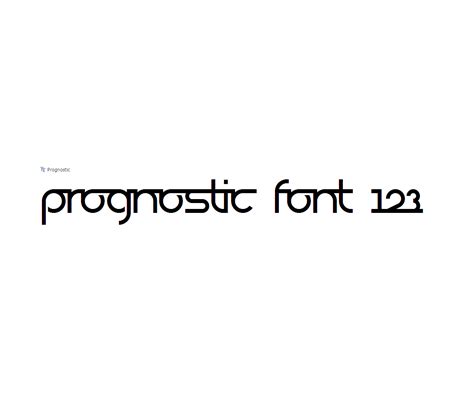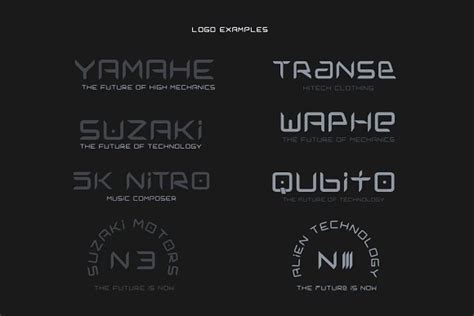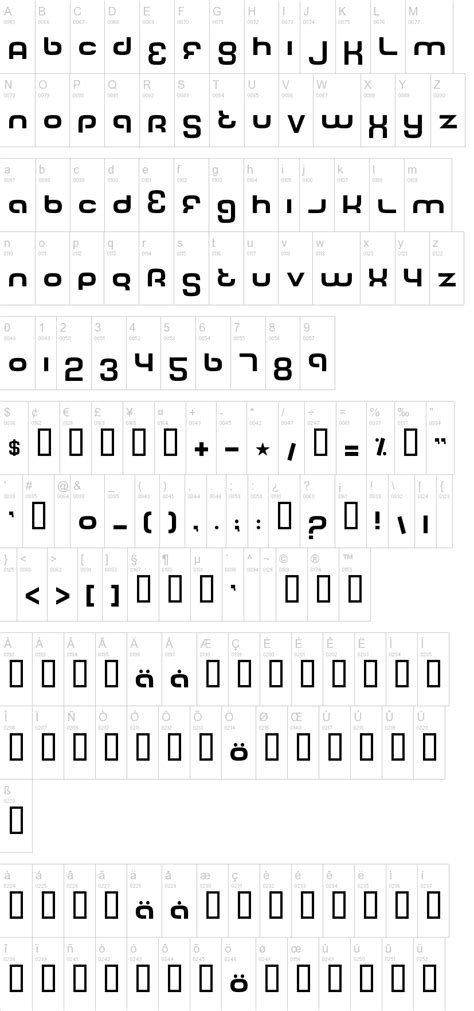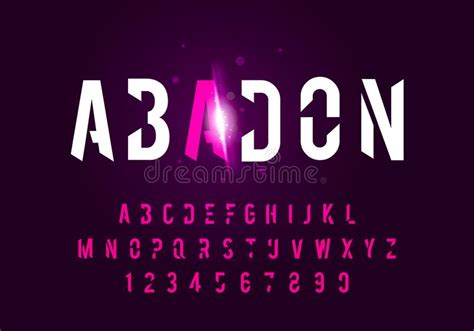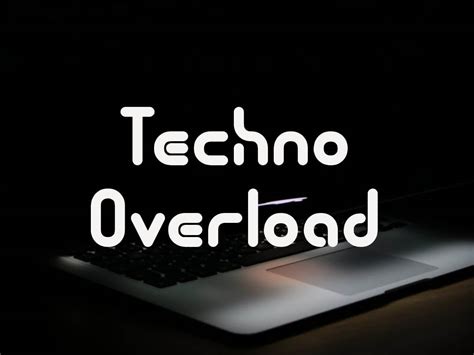
Modern Fonts For Tech Companies / How to Add New Fonts to Your Windows Computer - Ask a Tech ... / Modern fonts give your project an edge, whether you need a sleek typeface for your small business or fresh display font for creative work.. Computer modern was specifically based on the 10 point size of the american lanston monotype company's modern extended 8a, part of a family the fonts and derivatives, however, cannot be released under any other type of license. Holiday holiday valentine christmas various halloween easter. Can be a good solution for many of your design projects — especially in headings, posters, book covers as well as in web design. if you want to design a modern logo, the font you choose can really make a big difference. Logos, headlines, branding and packaging, posters personality:
Inmotion hosting has been a top rated cnet hosting company for over 14 years so you know you'll be getting good service and won't be. Ideal for use in games and futuristic gui designs. This geometric minimalistic font is modern in all the right ways. The best selection of modern fonts for windows and macintosh. Logos, headlines, branding and packaging, posters personality:
A modern font that you can use in poster designs, headers and book covers.
Modern fonts give your project an edge, whether you need a sleek typeface for your small business or fresh display font for creative work. Captain canaveral by iconian fonts. 8 jobs every company will be hiring for by 2020 (highest paying jobs of future). Choosing the perfect font for your projects is an important step, as it could make or break your design. 50 free modern fonts to download for a contemporary look. All the letters are perfectly sized to fit together on an even line. if you want to design a modern logo, the font you choose can really make a big difference. ✓ click to find the best 168 free fonts in the modern tech style. All from our global community of graphic designers. It comes in 3 weights. Line tech is a linear futuristic type suited for web. By cool fonts, we mean, modern fonts. The fonts, including any derivative works, can be bundled, embedded, redistributed and/or sold with any software provided that any reserved names are not.
Available for free download in otf format on behance, anurati is free hyperion has an air of high end tech and robotic vibe in its squarish letterforms. Inmotion hosting has been a top rated cnet hosting company for over 14 years so you know you'll be getting good service and won't be. Captain canaveral by iconian fonts. It comes in 3 weights. The fonts, including any derivative works, can be bundled, embedded, redistributed and/or sold with any software provided that any reserved names are not.
if you want to design a modern logo, the font you choose can really make a big difference. Free fonts for commercial use · new & fresh fonts · most popular fonts · alphabetic fonts · largest font families · trending fonts. You found 119 modern tech fonts from $5. Modern designers gradually moved away from humanists' handwritten lettering and embraced the precision of modern fonts. 'form follows function' in modernist design and the principle certainly applies to modern fonts. Download and install the computer modern free font family by donald e. Technology simple type tech design. Inmotion hosting has been a top rated cnet hosting company for over 14 years so you know you'll be getting good service and won't be. Computer modern was specifically based on the 10 point size of the american lanston monotype company's modern extended 8a, part of a family the fonts and derivatives, however, cannot be released under any other type of license. All are listed as free to use and can be uploaded to canva. .phone fonts for techno c5 techno high tech fonts techno house fonts techno industrial fonts techy looking fonts best techno logo fonts techno letter fonts techno fonts modern techno music fonts new techno fonts. The modern fonts in this collection are free in all three ways, so please make sure you read the designer's details before using them in your designs. All the letters are perfectly sized to fit together on an even line.
We have 53 free technical fonts to offer for direct downloading · 1001 fonts is your favorite site for free fonts since 2001. And when paired with thick letters, the result is. Anurati is a free tech font with consistent letters and futuristic style; The best selection of modern fonts for windows and macintosh. Logos, headlines, branding and packaging, posters personality:
By cool fonts, we mean, modern fonts.